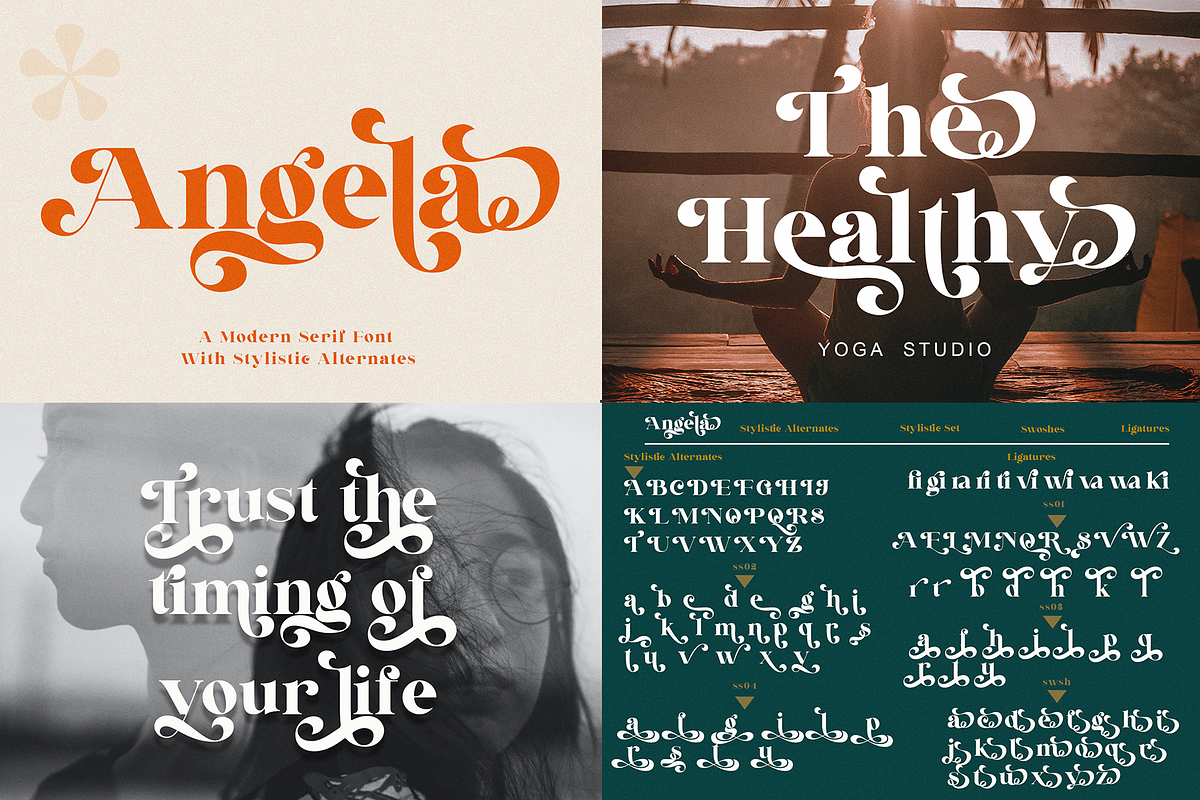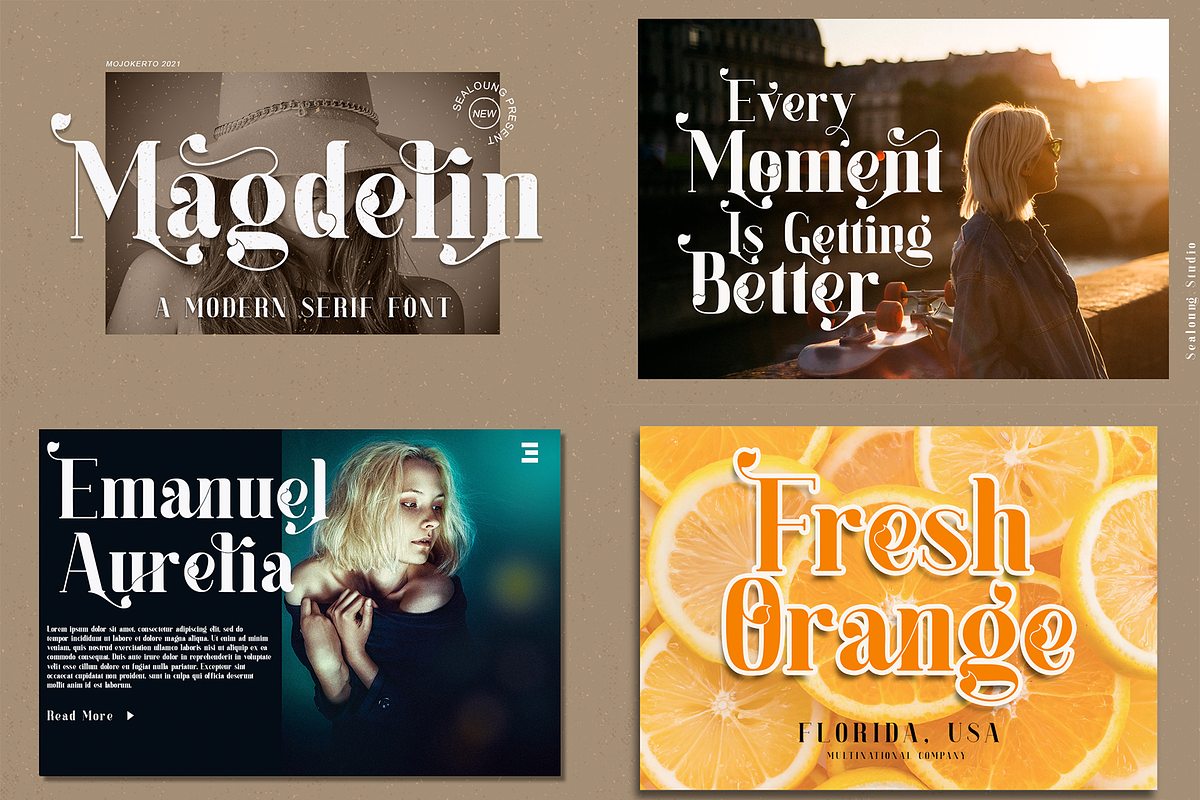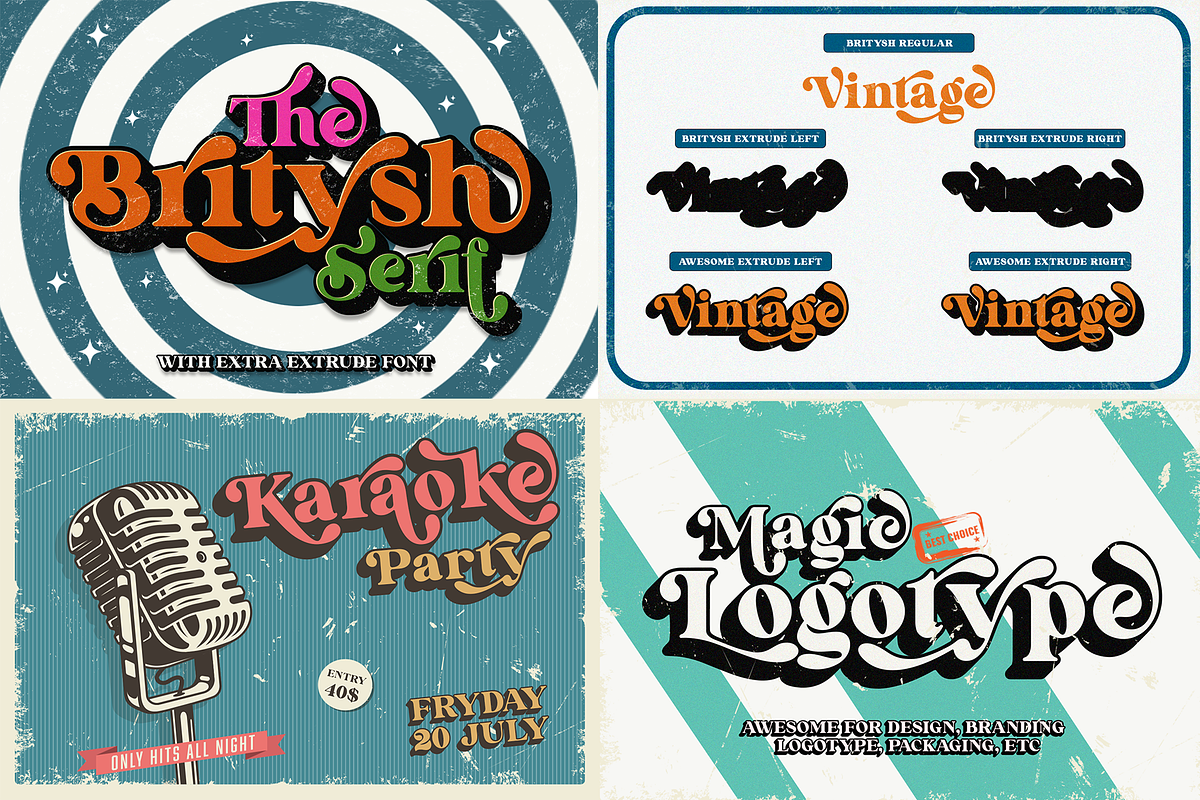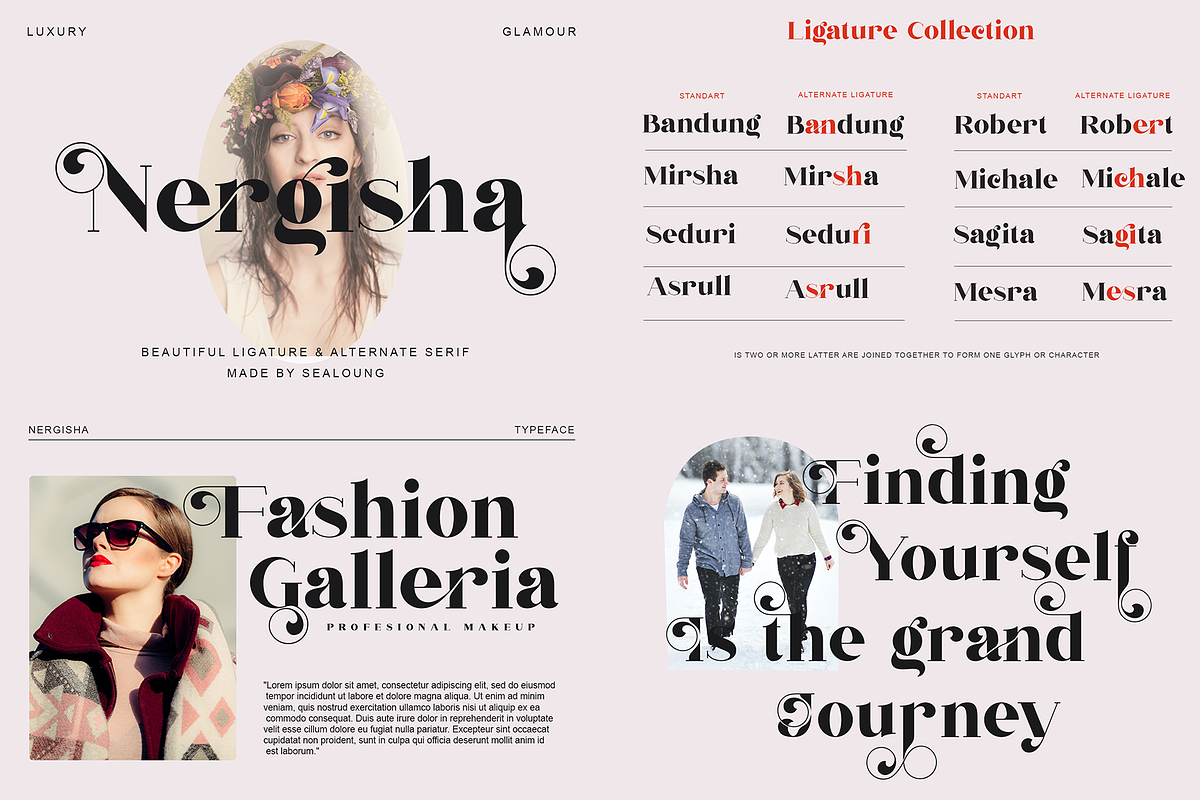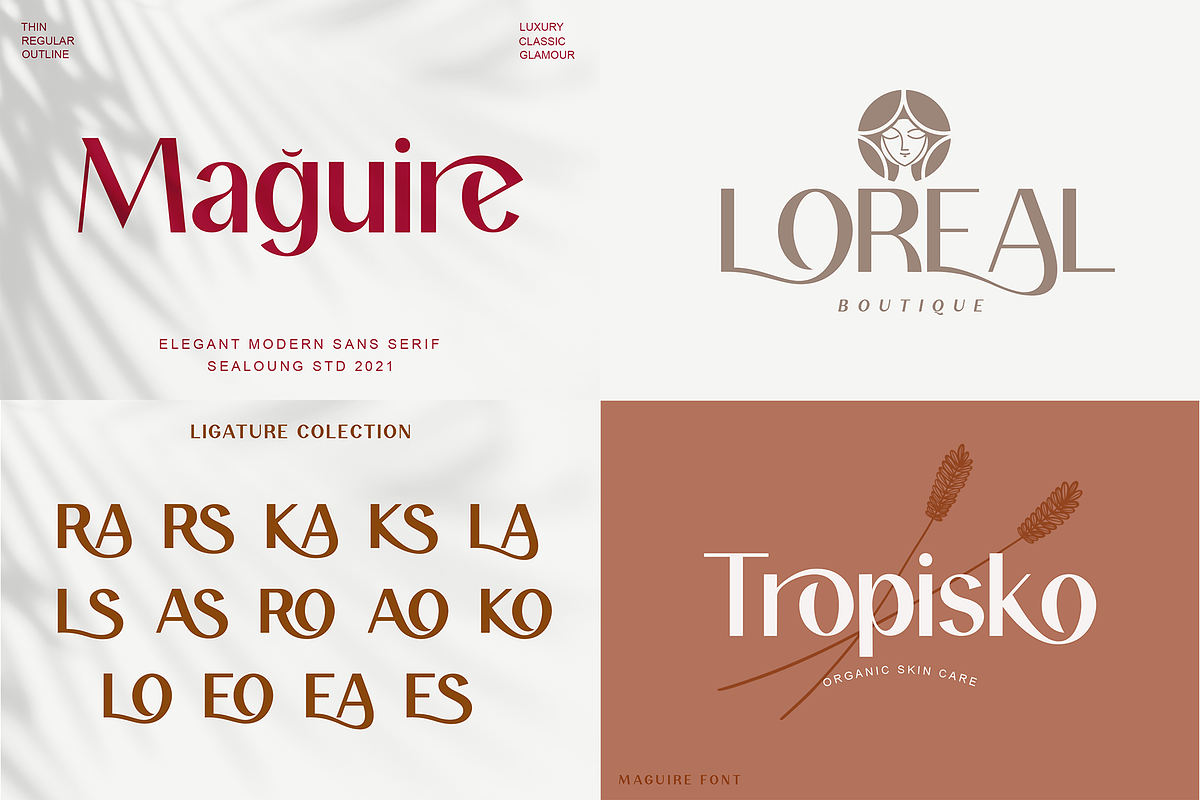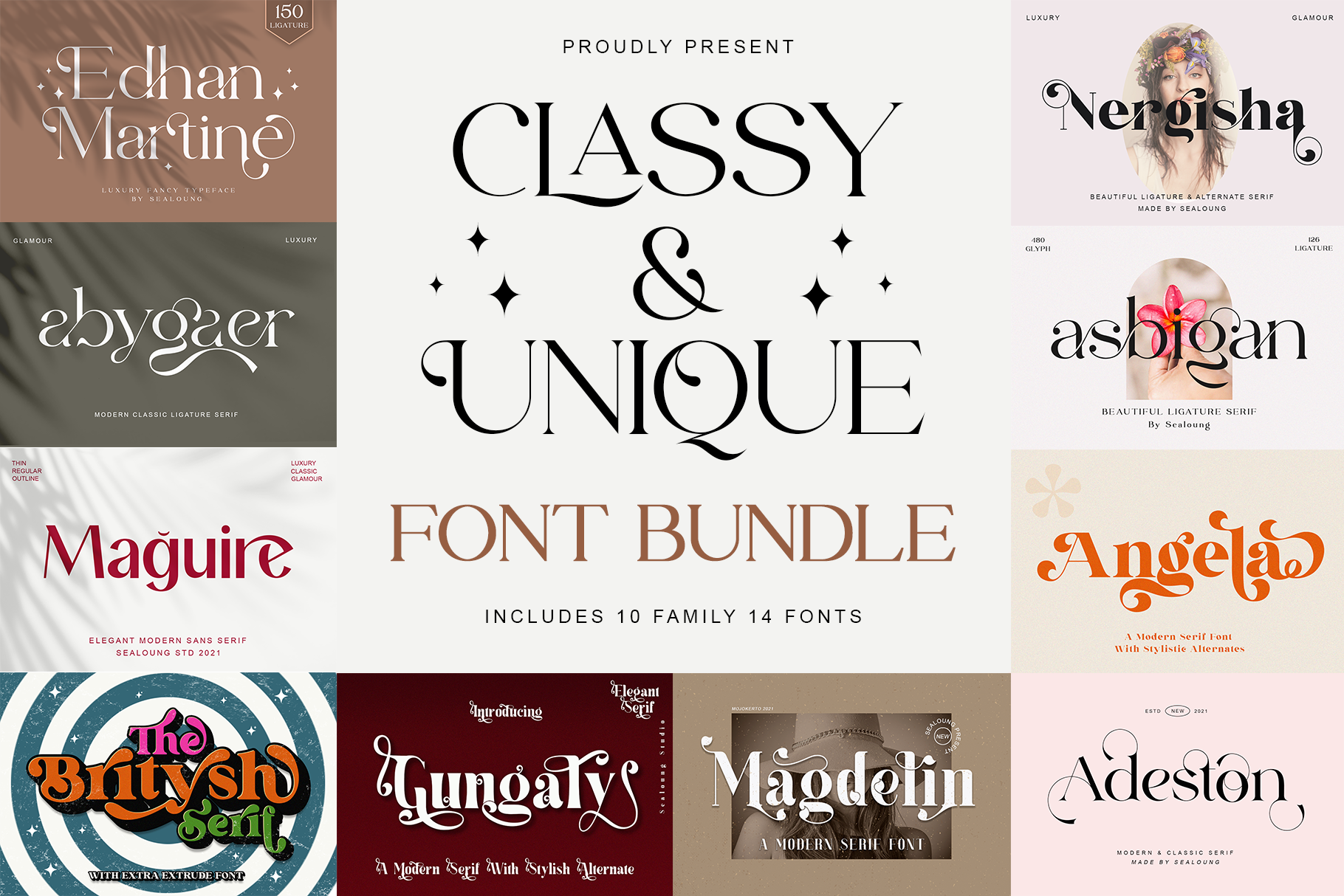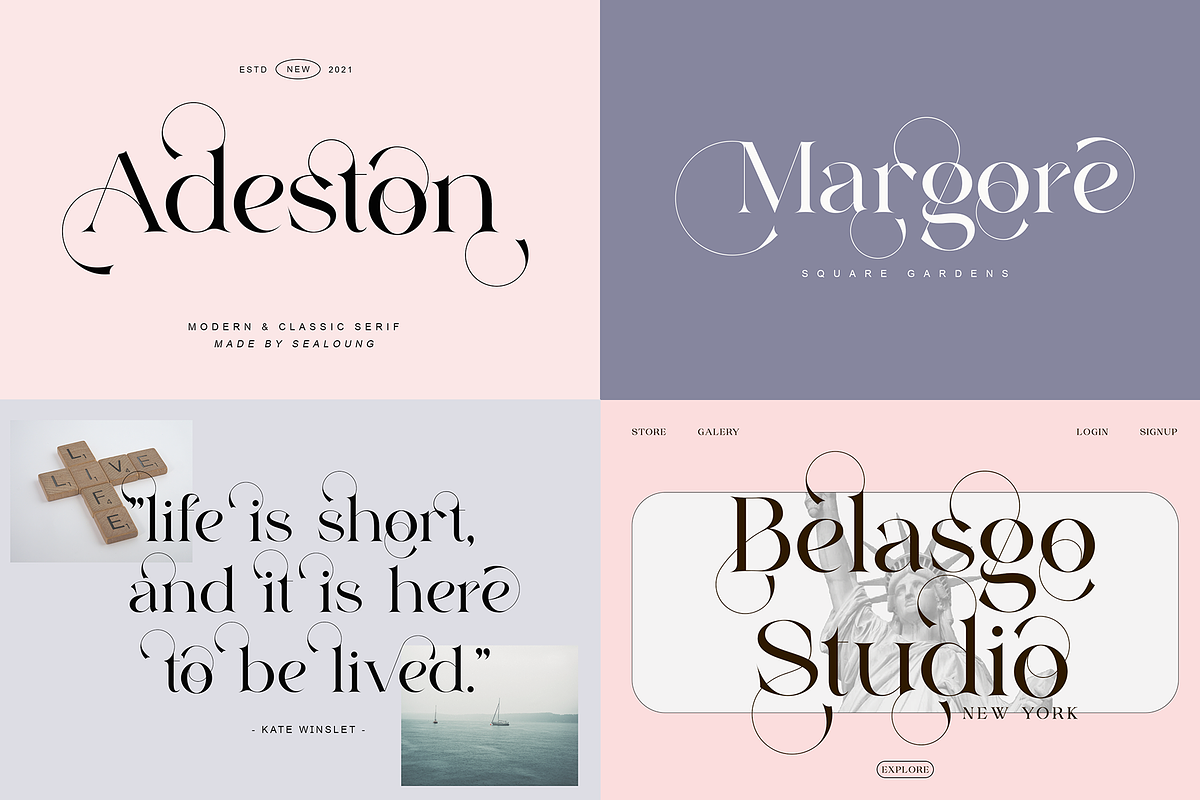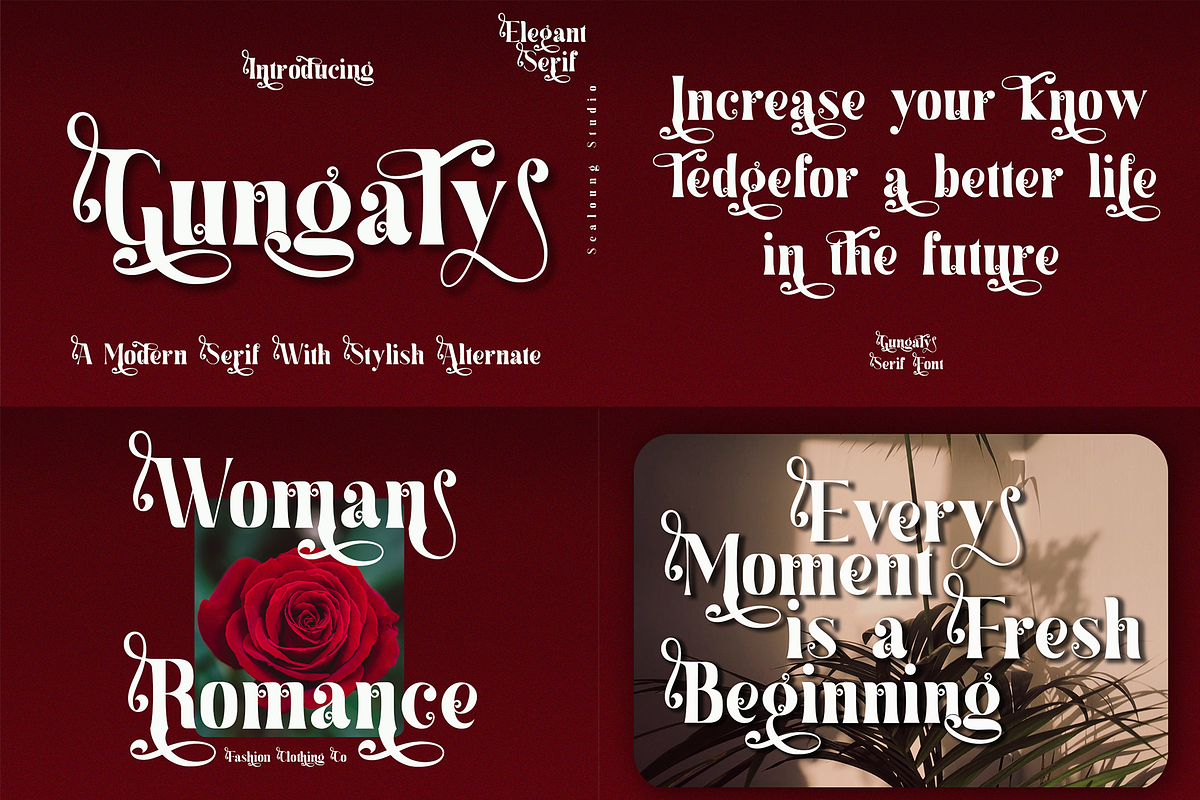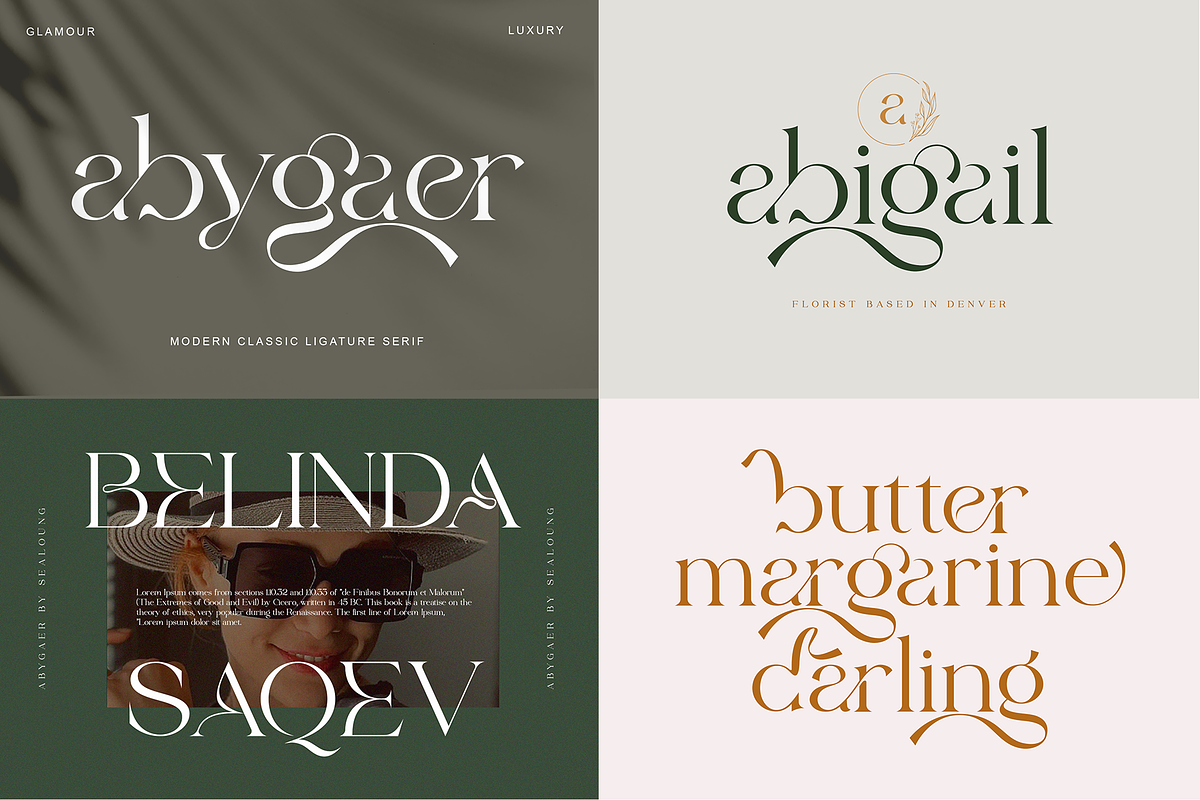
Classy & Unique Font Bundle
The Unique & Classy Font Bundle
This bundle contains 10 typefaces high-quality font families. Our best-selling fonts from Sans Serif and Serif Font all with modern elegant, and stylish looks. This bundle is suitable font for many creative products & designs. Go ahead and make Branding, Logos, Blog, Social Media, Invites, Wedding, Poster, Magazine, Quotes, Packaging, Photo Overlays, Poatcard, Advertisements, Fshion and others. This bundle contain 8 items, with total 13 fonts inside.
Fonts Included:
- Edhan Martine https://crmrkt.com/GoKpA4
- Abygaer https://crmrkt.com/dQjvmd
- Adeston https://crmrkt.com/bbM7By
- Asbigan https://crmrkt.com/rGM2b0
- Maguire https://crmrkt.com/4d3Pxa
- Brytish https://crmrkt.com/9d7rpD
- Angela https://crmrkt.com/6d5qBj
- Nergisha https://crmrkt.com/eM64dd
- Gungaly https://crmrkt.com/PxADNm
- Magdelin https://crmrkt.com/arKpzK